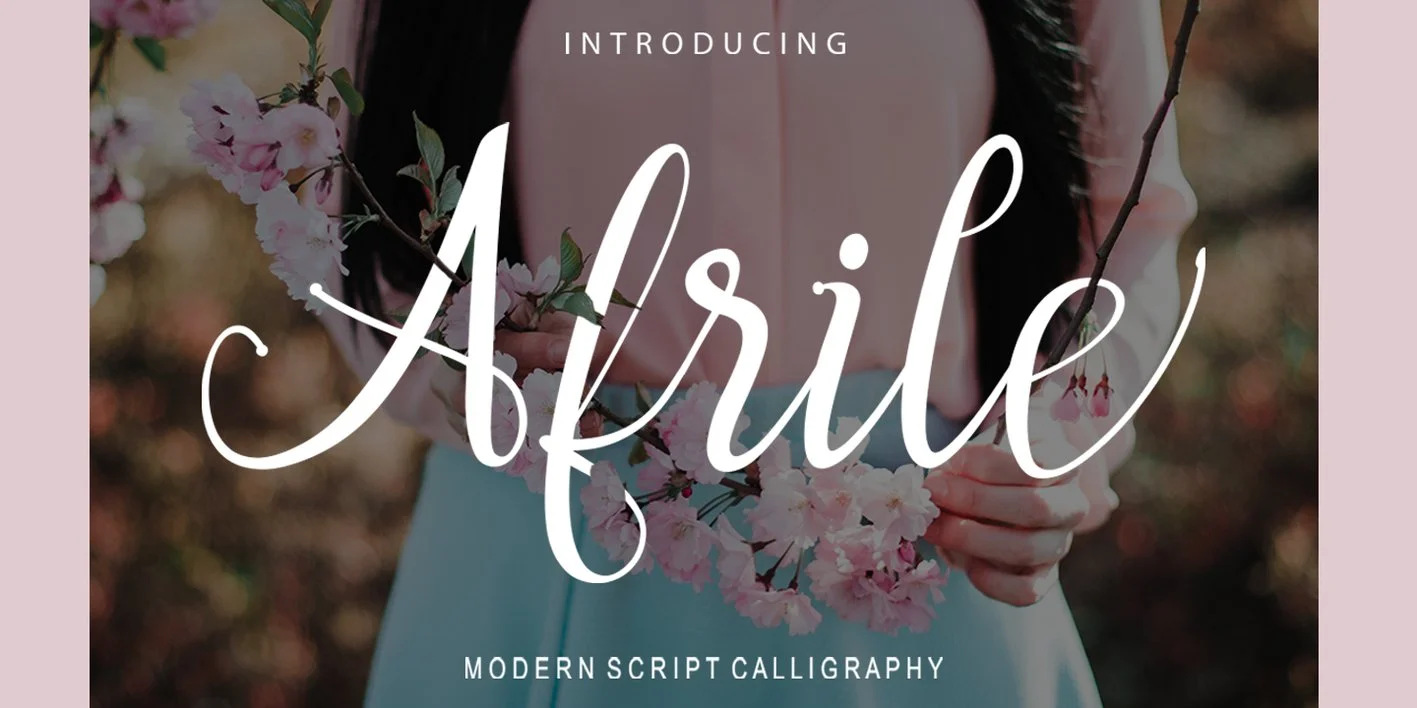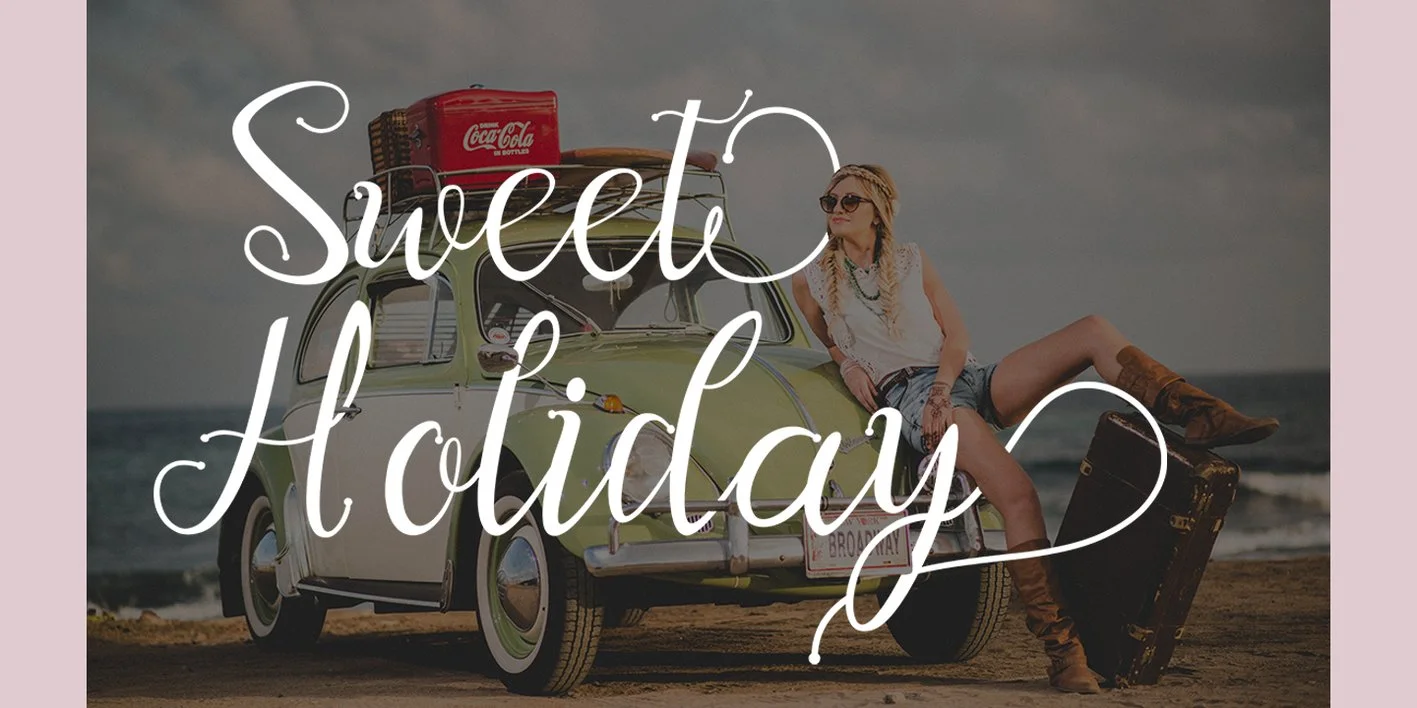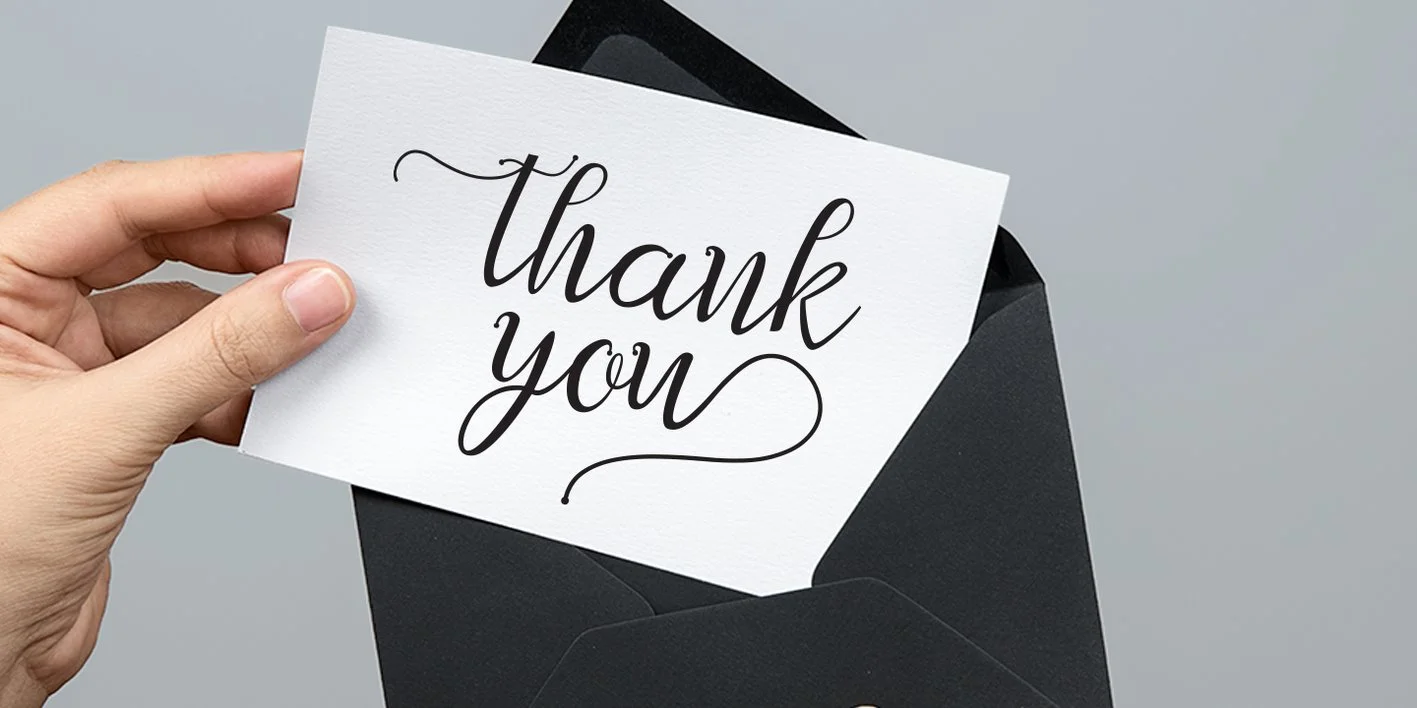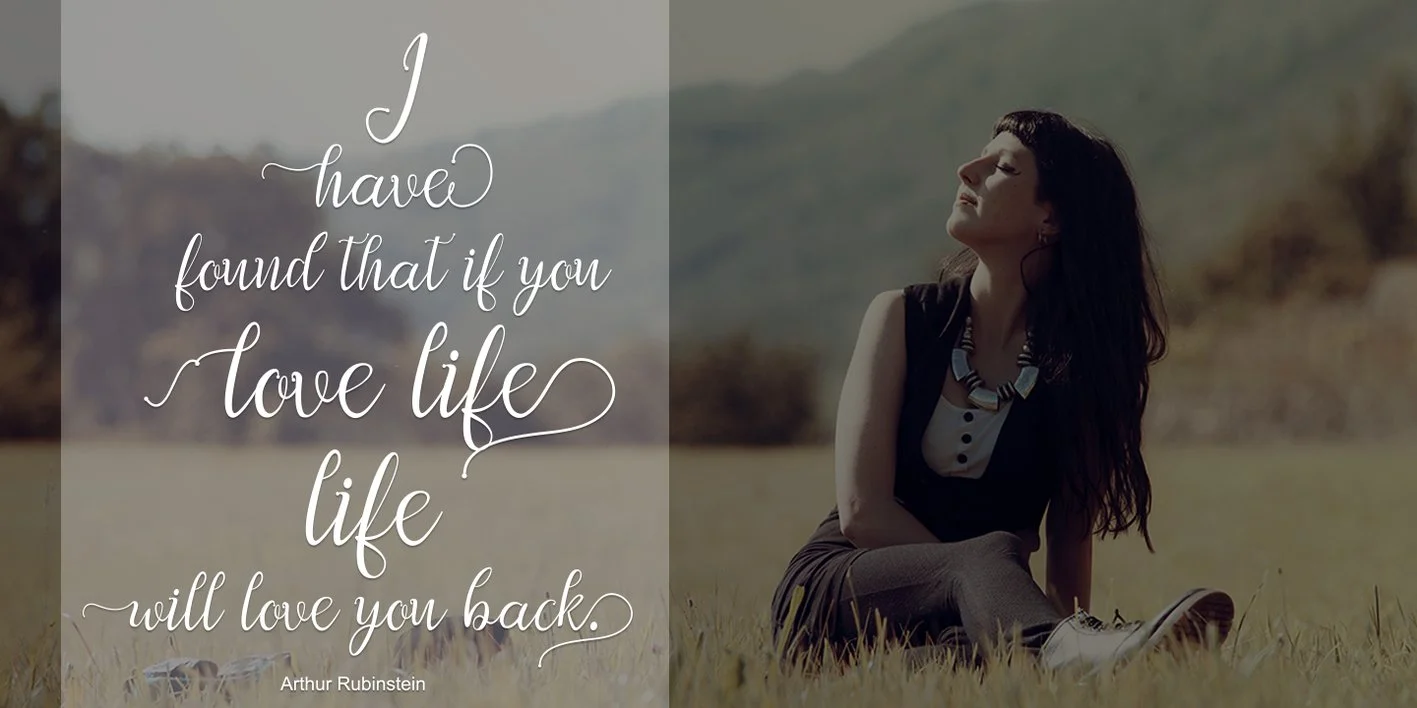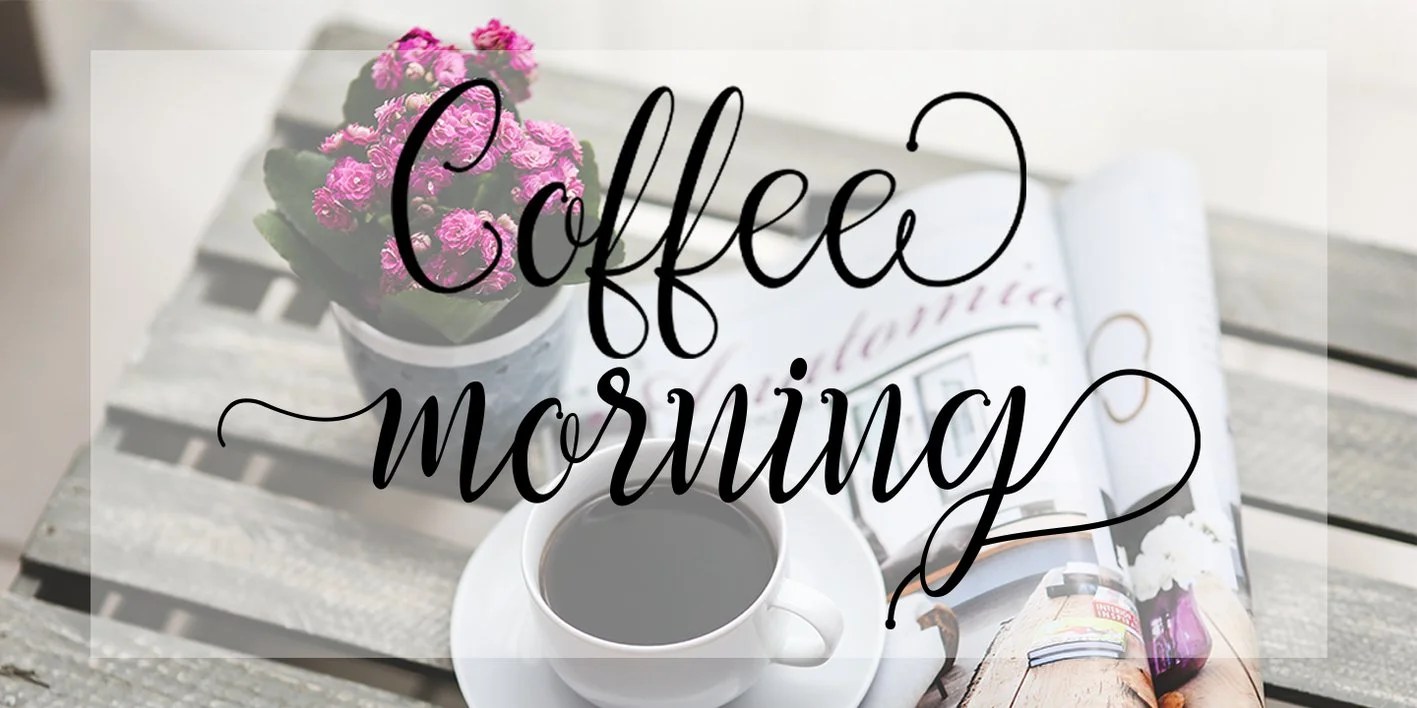
Afrile Script Font
Afrile Script Font is perfect for spring wedding invitations, Easter greeting cards, garden party materials, floral boutique branding, seasonal marketing campaigns, fresh beauty product packaging, springtime event graphics, botanical illustration projects, nature-inspired stationery, organic farm branding, flower shop signage, and blooming projects that require fresh, spring-inspired typography with seasonal charm and natural renewal energy.
What makes Afrile Script Font so exciting is its fresh seasonal vitality and spring-awakening elegance that captures the joyful renewal and blossoming beauty of springtime's arrival. This typeface features flowing script letterforms with organic curves and fresh characteristics that evoke blooming flowers, gentle breezes, and the optimistic energy of new beginnings. The font's seasonal character and renewal appeal make it perfect for brands and projects that want to communicate freshness, growth, and the kind of natural vitality that celebrates life's beautiful cycles and seasonal transformations.
Afrile Script Font typically comes in multiple weights and styles including Light, Regular, Medium, and Bold variations. Many versions also include floral ornaments, seasonal decorative elements, and spring-themed symbols that enhance the font's natural functionality and provide designers with comprehensive tools for creating fresh, seasonally-inspired typography compositions that celebrate renewal and natural beauty.
Celebrate renewal with the fresh elegance of Afrile Script Font. This seasonal typeface brings together spring vitality with contemporary design functionality, making it an essential tool for seasonal brands and nature-focused businesses that need to create memorable, renewal-inspired communications that resonate with audiences seeking fresh beginnings and natural beauty. The font's spring character ensures your seasonal projects will convey vitality and natural optimism.
Whether you're designing spring campaigns, floral branding, or seasonal event materials, Afrile Script Font delivers exceptional freshness and natural charm that connects with audiences who appreciate seasonal beauty and natural renewal. Its flowing, organic appearance works beautifully with spring color palettes and botanical imagery, creating designs that feel both fresh and professionally crafted for seasonal excellence.
The gracefully crafted letterforms of Afrile Script Font demonstrate exquisite attention to the natural flow and seasonal rhythm that defines spring aesthetics and renewal energy. Each character has been designed to maintain excellent readability while delivering the fresh personality that makes spring-themed projects feel authentic and emotionally uplifting for audiences seeking seasonal inspiration and natural beauty.